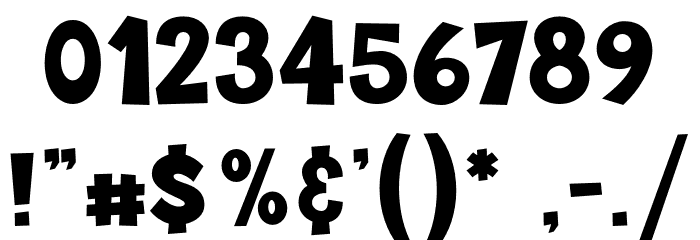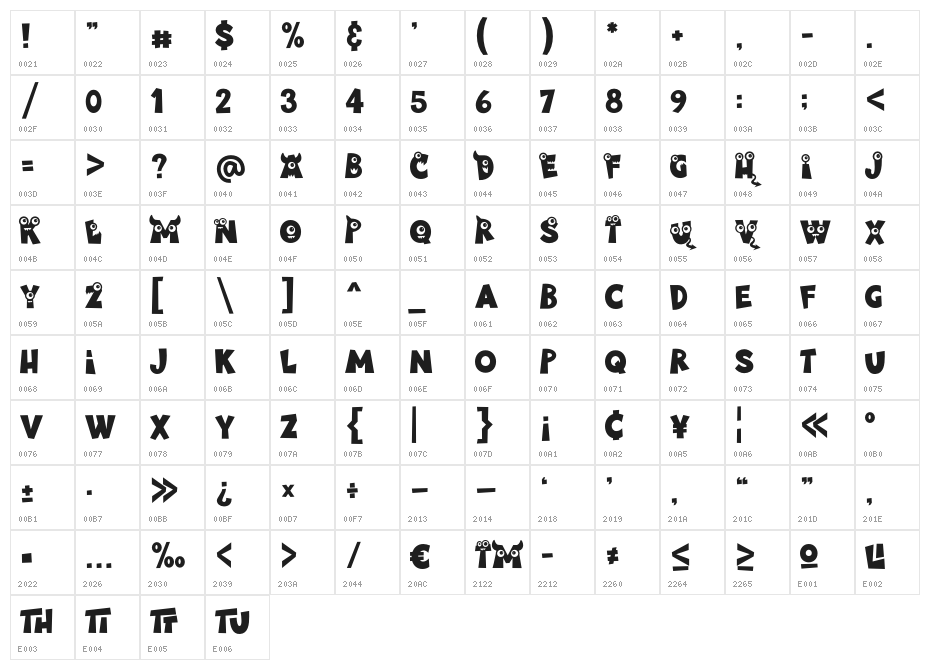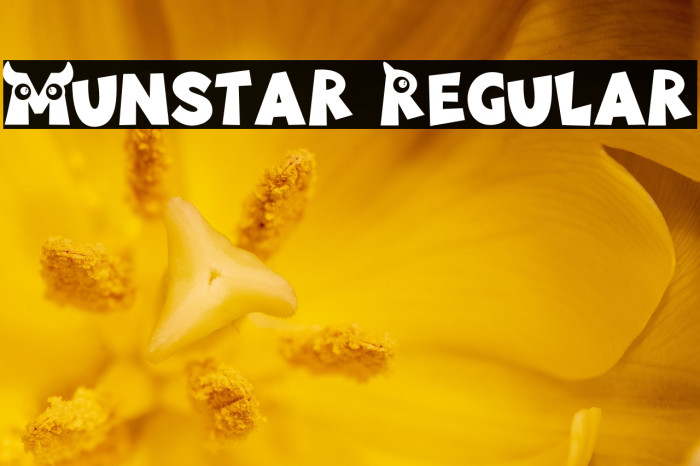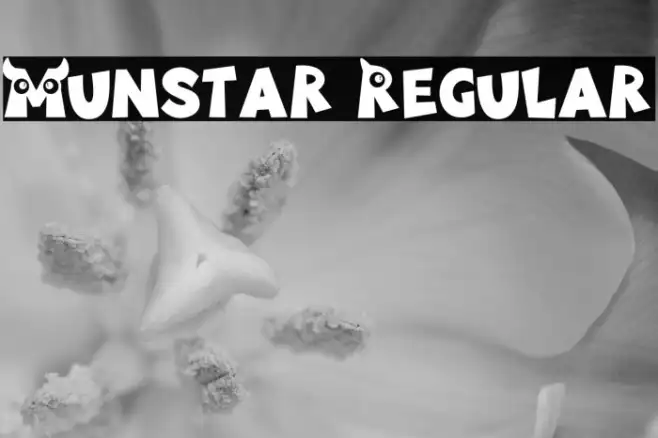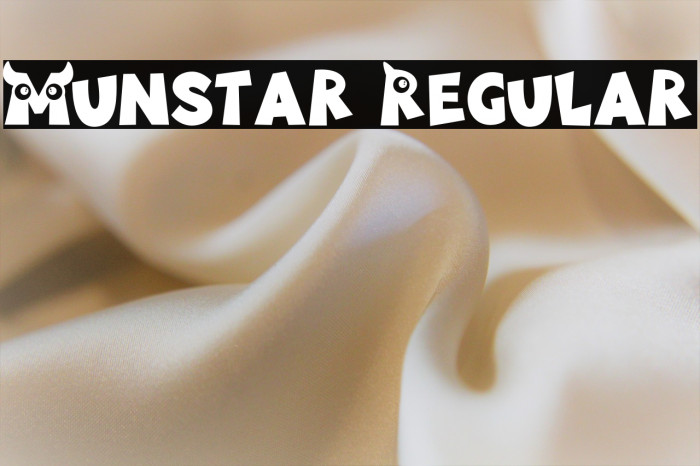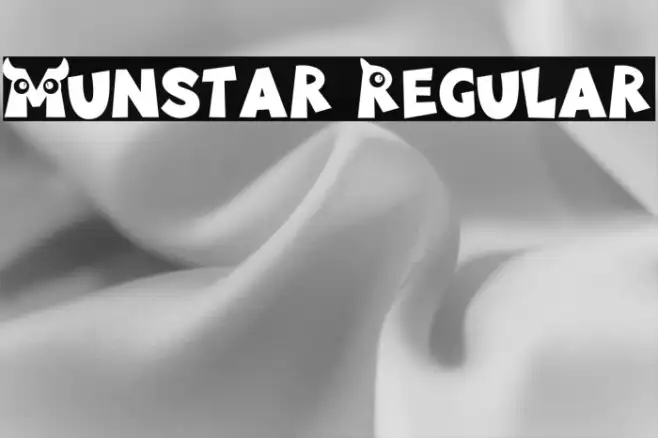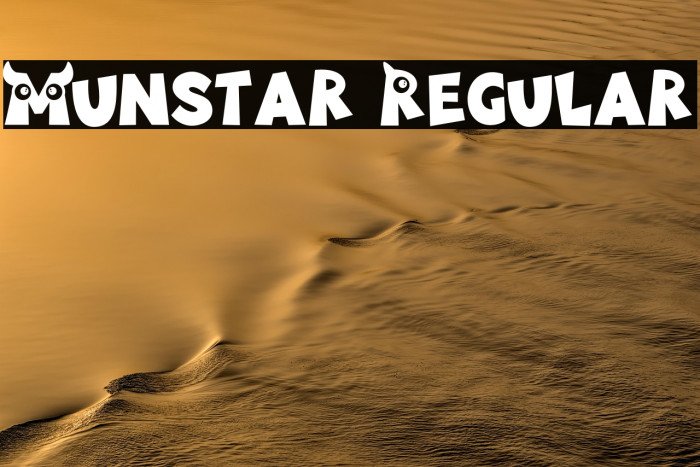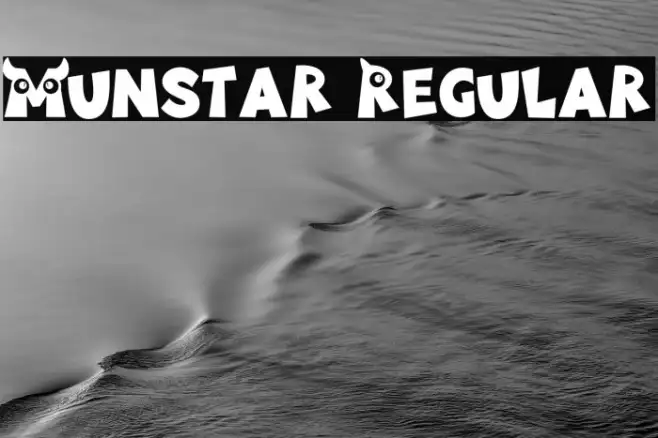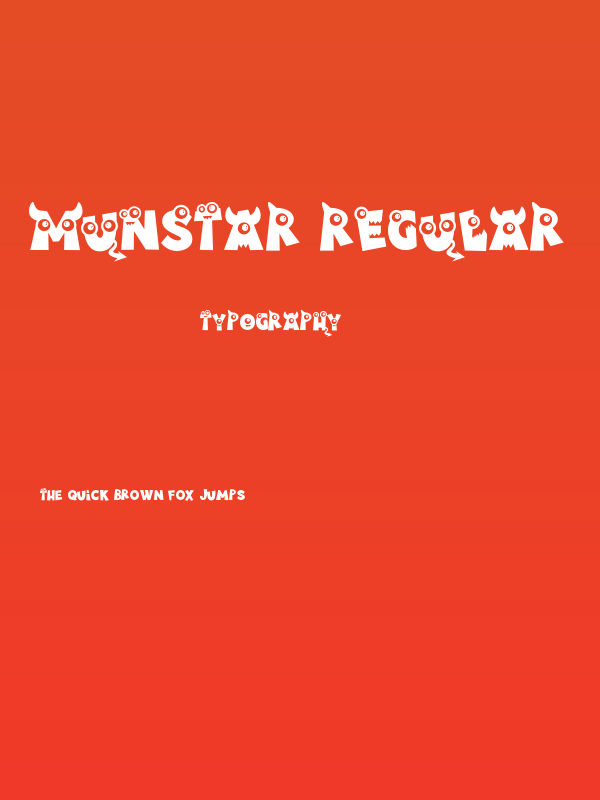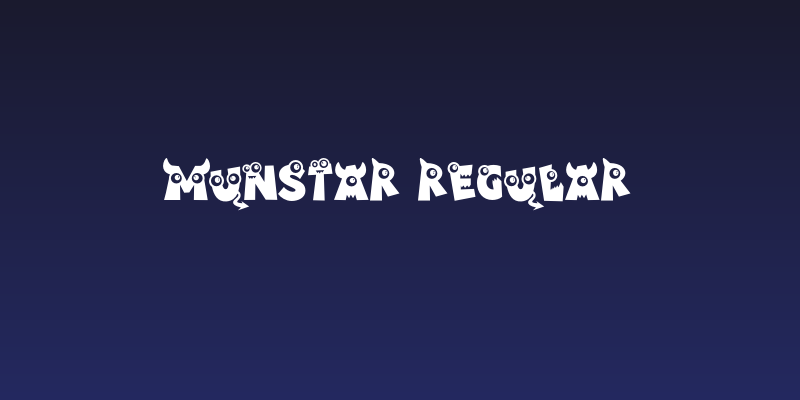
Munstar Regular Font
Munstar Regular Description
This playful and quirky font features bold, cartoonish letters with unique character designs. Each letter is adorned with whimsical elements like eyes and horns, giving it a monster-like appearance. The uppercase letters are particularly expressive, with exaggerated shapes and playful details. The numbers and special characters maintain the same lively style, making the font ideal for creative and fun projects. Its bold and eye-catching design ensures it stands out, making it perfect for attention-grabbing headlines or playful branding.
| Overall Style | Playful, Quirky |
| Proposed Projects | Ideal for children's books, Halloween-themed designs, playful branding, and eye-catching posters. |